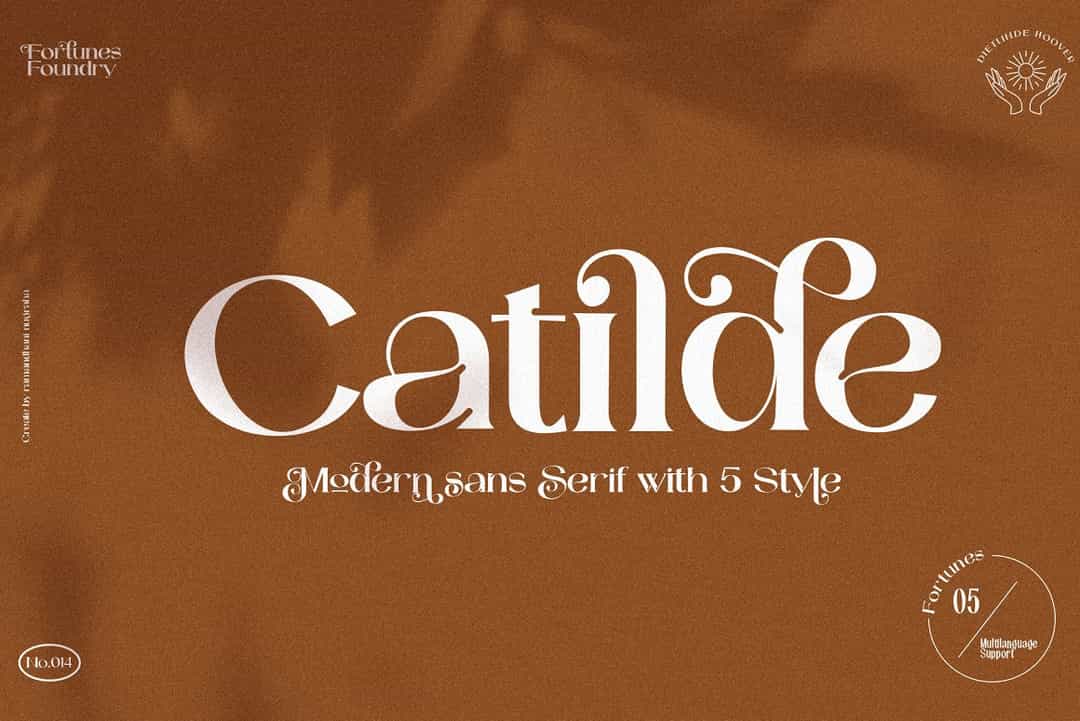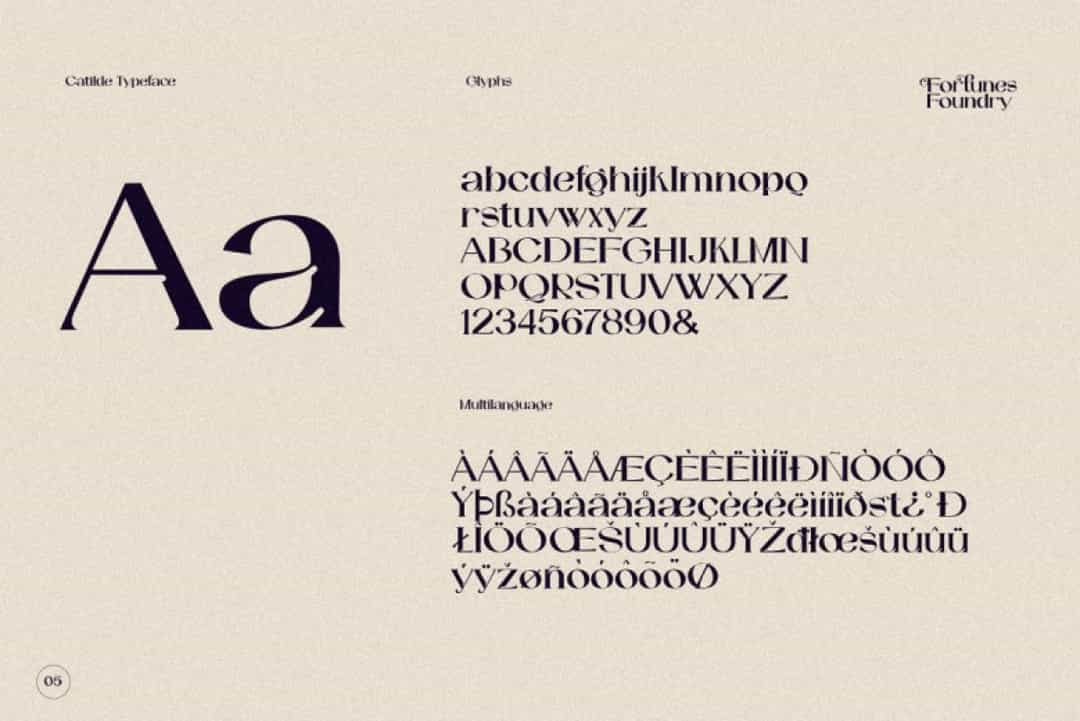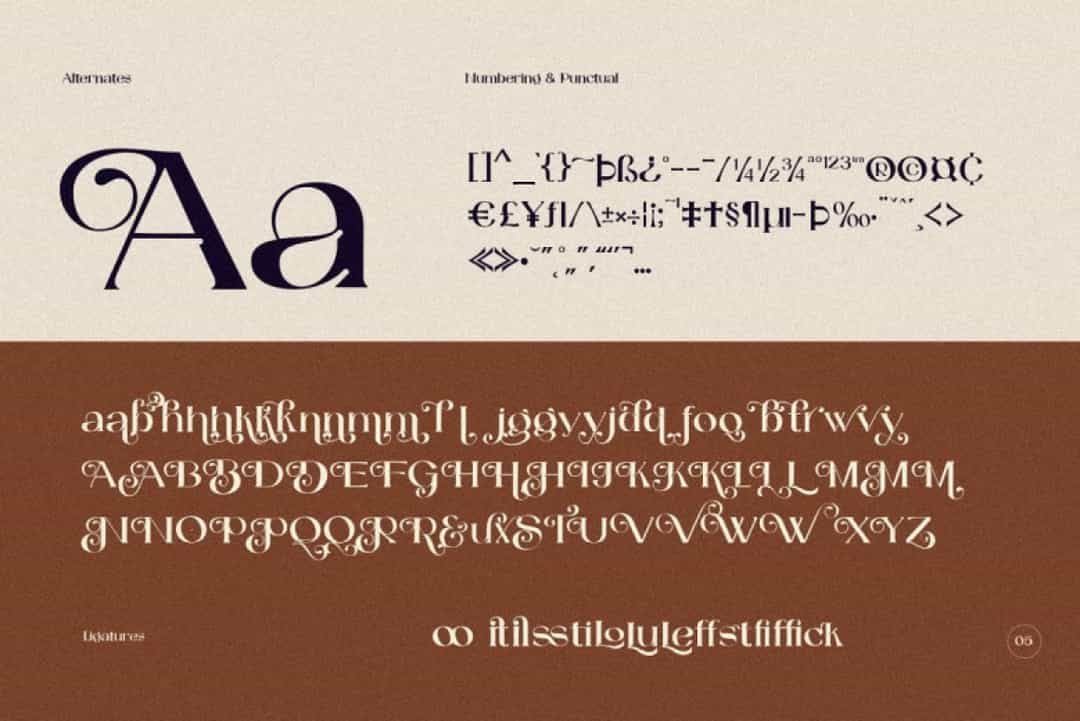
Catilde Serif is an elegant font featuring soft serifs and strong stems for a sophisticated appearance. Available in five distinct styles, Catilde Serif can add class and sophistication to magazines, branding logos, invitations, headlines, ads etc.